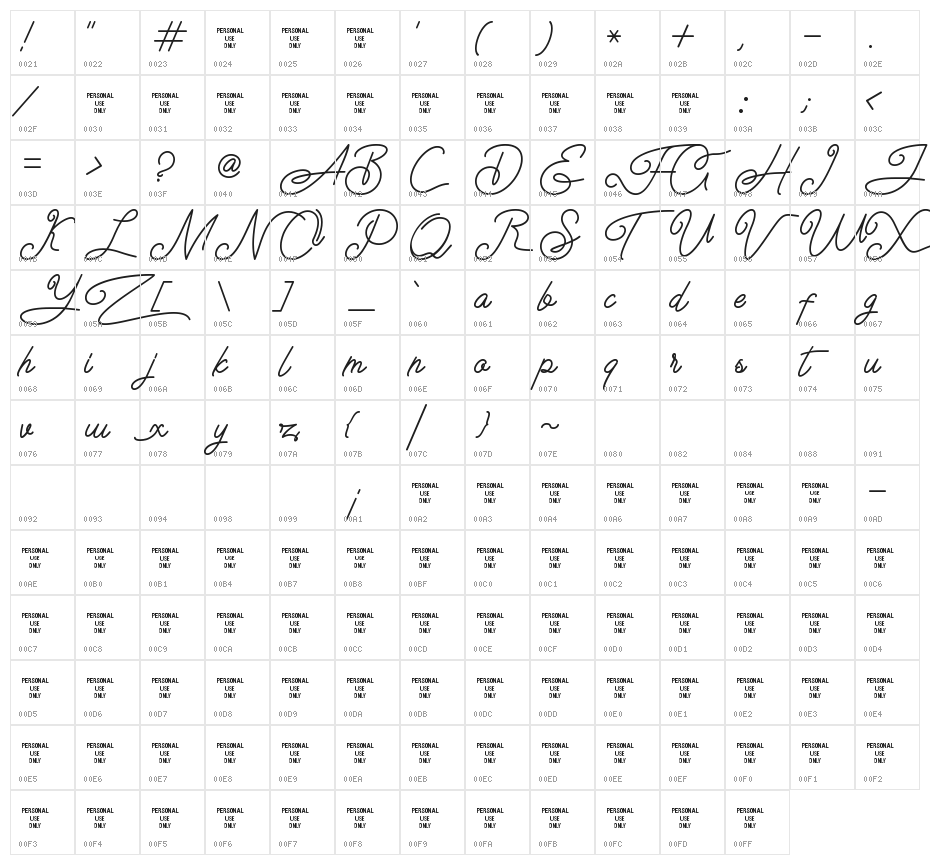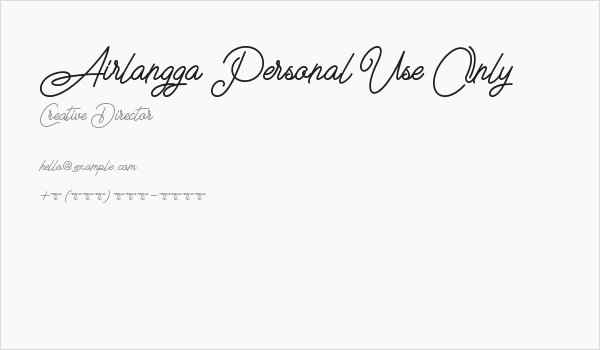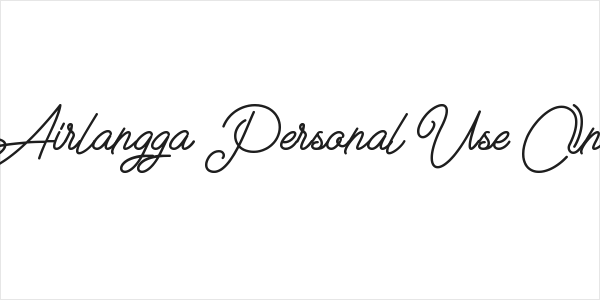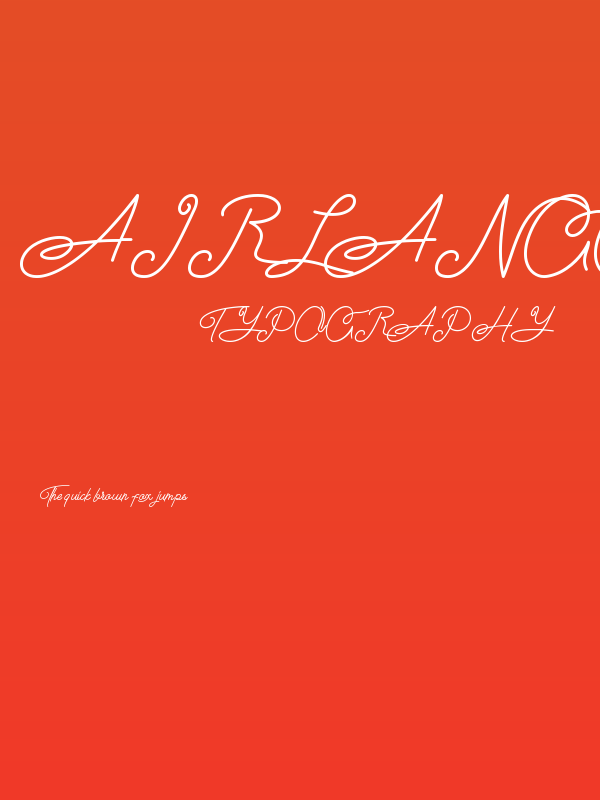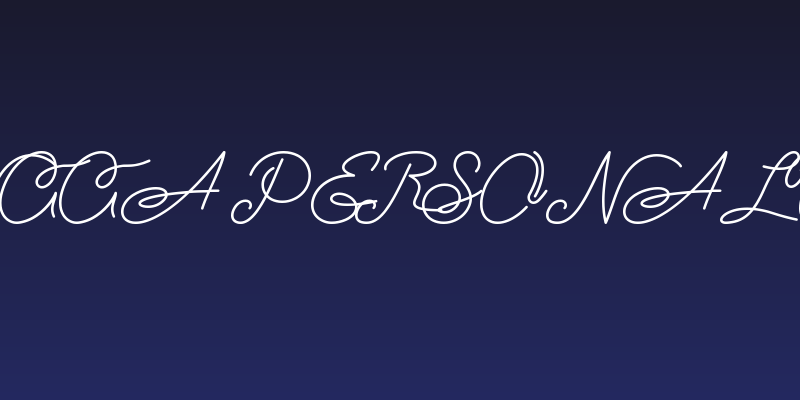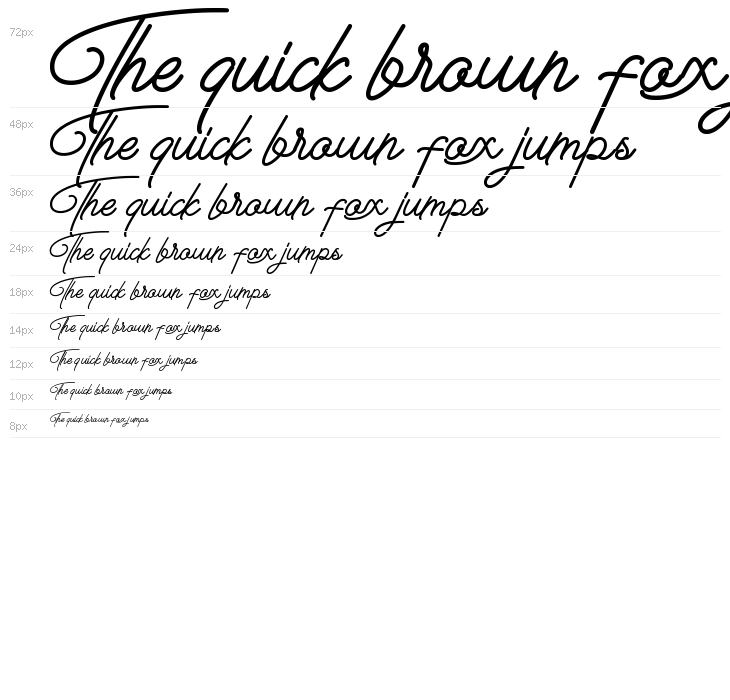
Airlangga Personal Use Only Font
Airlangga Personal Use Only Description
This font features an elegant and flowing script style with a distinct calligraphic influence. The uppercase letters are characterized by their intricate loops and swirls, creating a sense of sophistication and grace. The lowercase letters maintain a consistent flow, with smooth connections between each character, enhancing readability while preserving the decorative nature. The numerals and special characters are designed to complement the overall aesthetic, ensuring a cohesive look across all text. This font is ideal for projects that require a touch of elegance and formality.
| Overall Style | Elegant, Decorative |
| Proposed Projects | Wedding invitations, greeting cards, elegant branding, and formal event programs. |